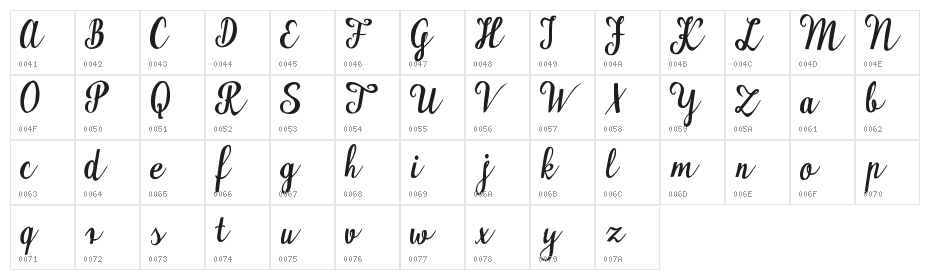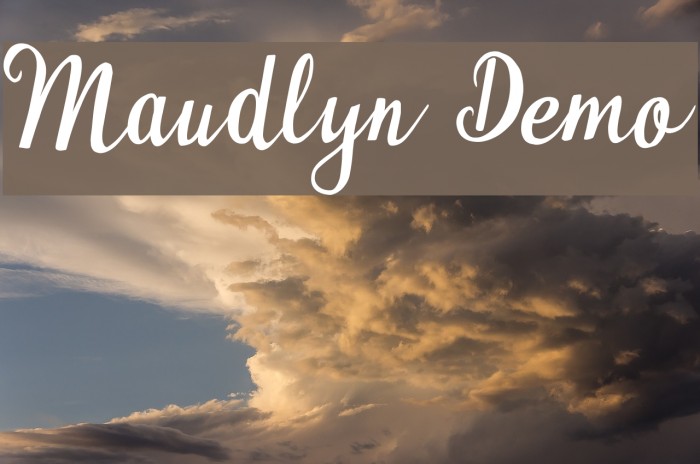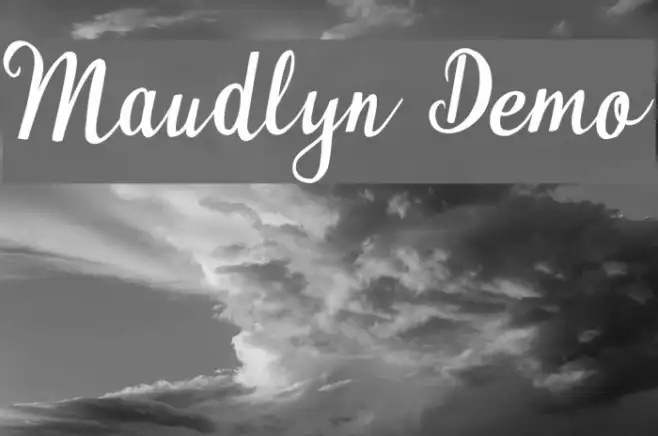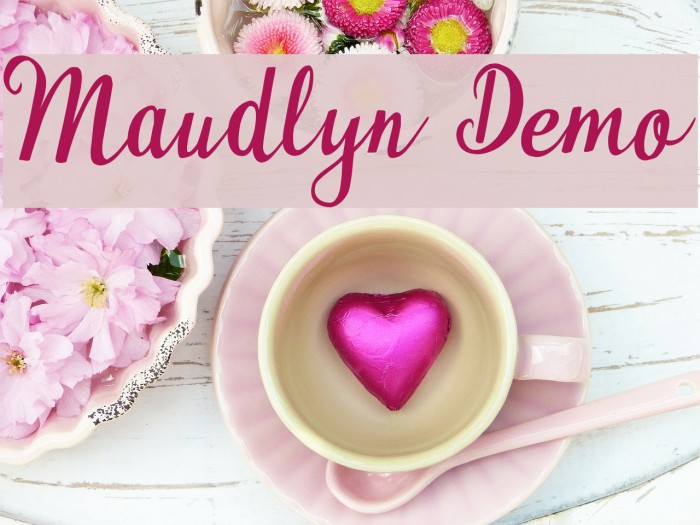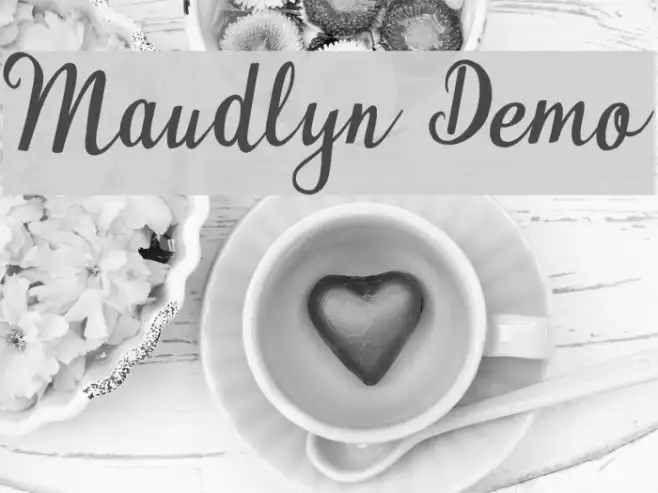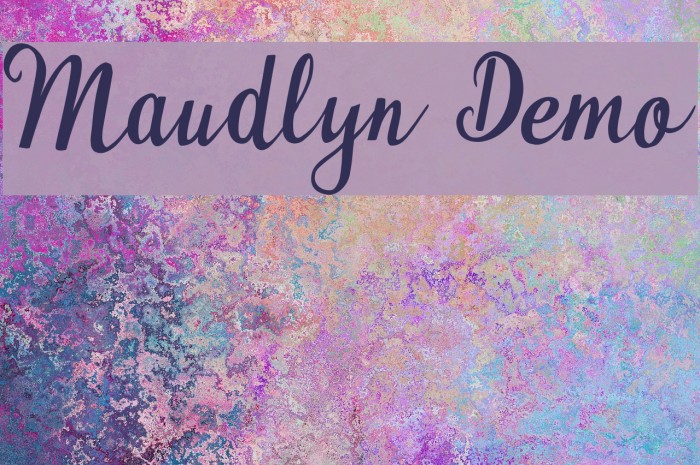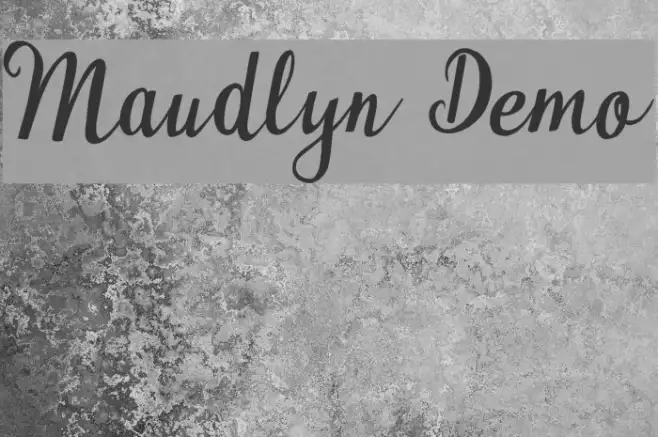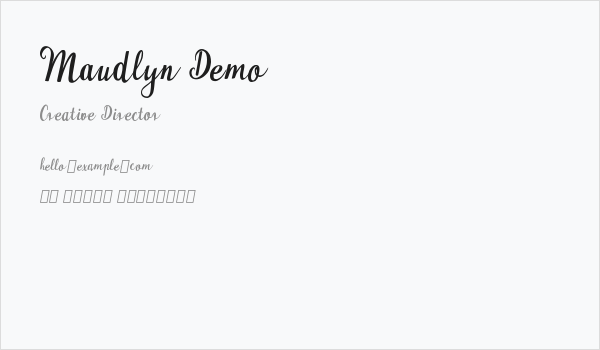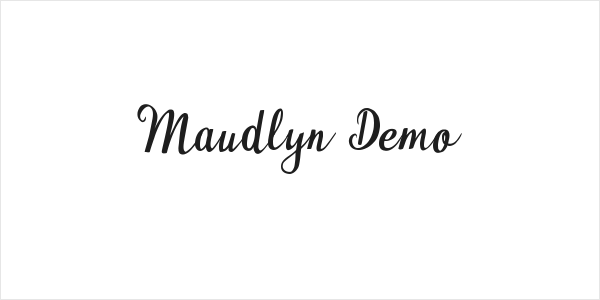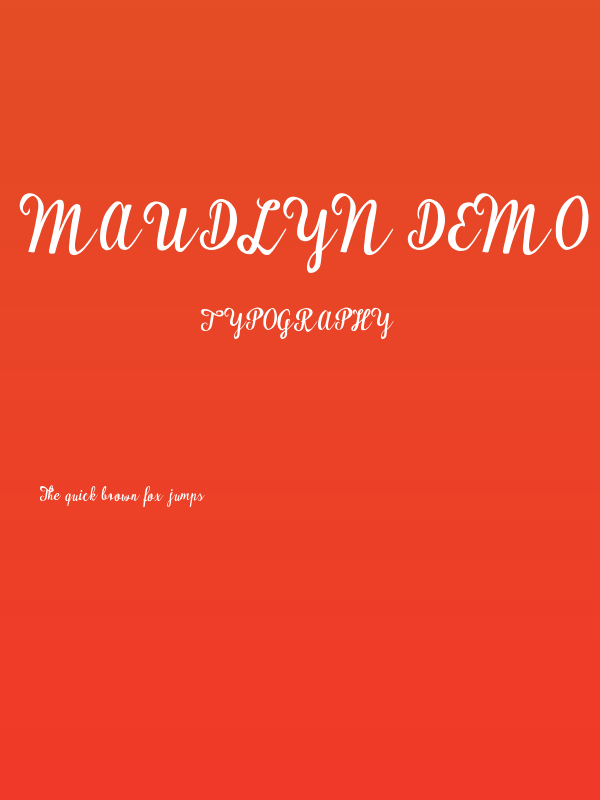
Maudlyn Demo Font
Maudlyn Demo Description
This font features an elegant, flowing script style with a modern twist. The characters are connected, creating a seamless and fluid appearance. The uppercase letters are ornate with flourishes, while the lowercase letters maintain a consistent, cursive form. The strokes are smooth and rounded, giving the font a graceful and sophisticated look. The overall design is balanced, with a slight slant that enhances its cursive nature. This font is ideal for projects that require a touch of elegance and style, such as invitations, branding, and decorative text.
Overall StyleElegant, Modern
Use CaseHeadlines, Invitations, Branding
Proposed ProjectsIdeal for wedding invitations, branding, greeting cards, and decorative headings.